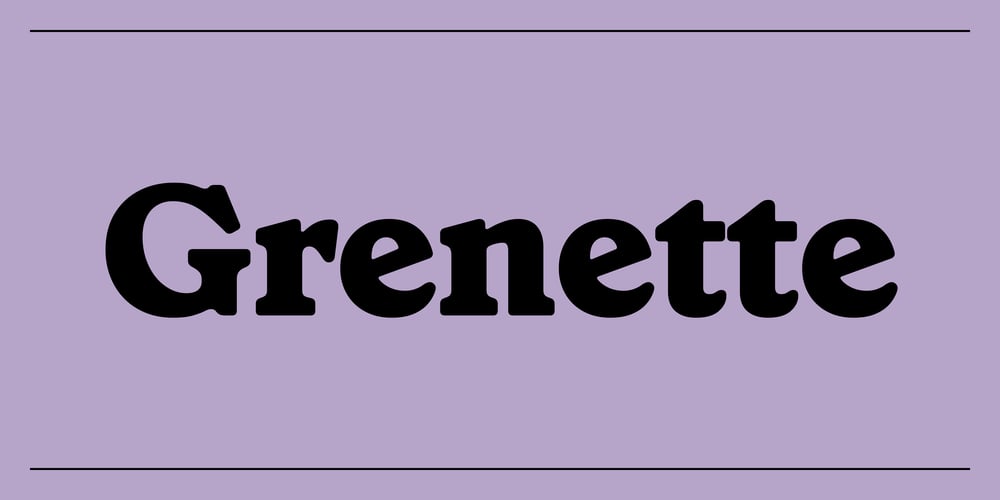
Grenette
Grenette font
Grenette Font Family was designed by Colophon Foundry and published by Colophon Foundry. Grenette contains 10 styles and family package options. Combining influences from Windsor (from Stephenson Blake & Co’s Wood Letter Specimen, 1915) and Richmond Old Style (from DeLittle’s Wood Type Specimens, 1966), Grenette’s imposing serifs contrast with the serif-less interiors of certain forms such as «n», «h» and «v» which allows its personality to lie within intentional asymmetry and subtle quirks. Certain characteristics evolve through the styles (Light through Black) as weight increases; from the Serifs being round and bulged in the Light, therefore feeling more delicate; to square and sturdy in the Black weight, feeling more robust, giving Grenette a distinct appearance across all styles.Furthermore the UPPERCASE contains a distinct flavor of its own. Its expressive nature gives real texture to ALL CAPS settings, this is particularly noticeable in forms such as the «U», «B», «R» and «D» that bulge on their vertical stress.